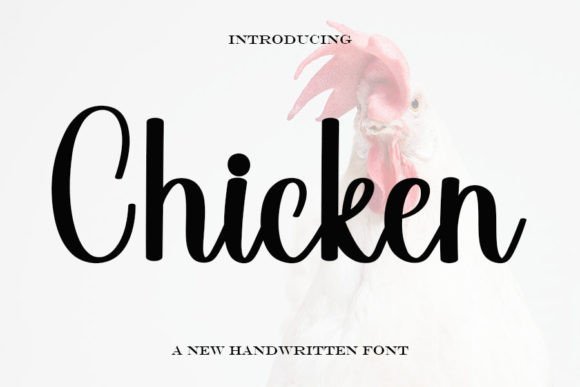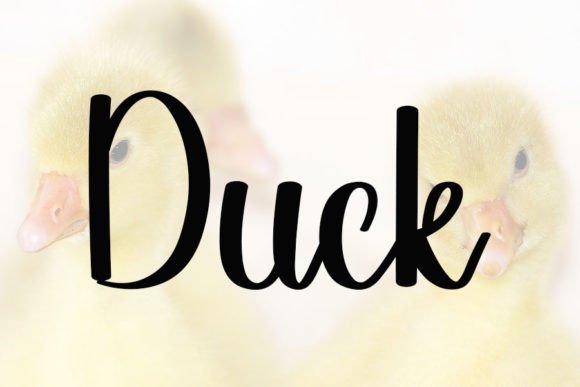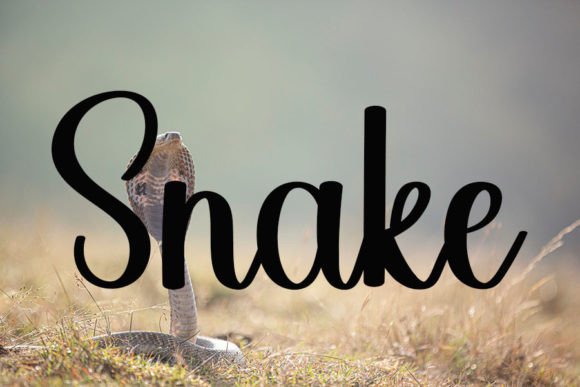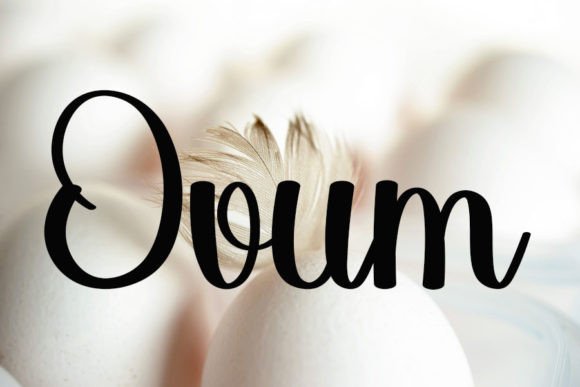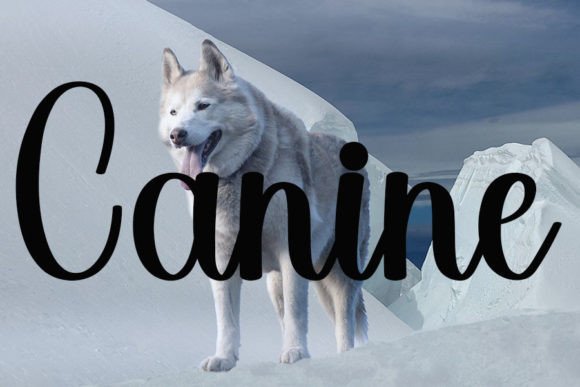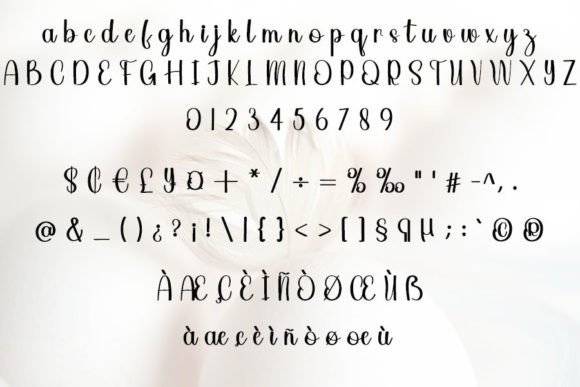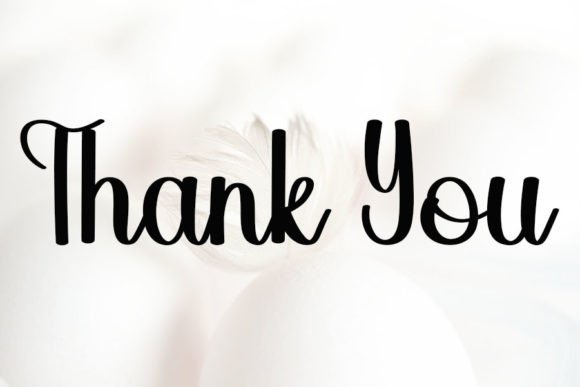
Discover the Timeless Charm of Chicken Font
Have you ever been working on a design project, pouring over endless options for the perfect font, when suddenly you stumble upon something that makes your heart skip a beat? For designers, this moment is a game-changer. It’s the moment when you know you’ve found the perfect fit for your project. And for many, that perfect fit is the Chicken Font.
This beautiful handwritten font is described by an elegant touch, making it perfect for a wide range of projects. Whether you’re working on a wedding invitation, a branding campaign, or a simple social media post, Chicken Font is sure to bring a touch of sophistication and style. Its incredibly distinct and timeless style makes it a valuable asset for any designer looking to add a little something extra to their designs.
Key Features of Chicken Font
- Character Set: The font includes a wide range of characters, including Latin, Greek, Cyrillic, and Devanagari scripts, with over 1000 glyphs.
- Resolution: Chicken Font is designed to be highly legible at various resolutions, from 72 dpi to 300 dpi, making it suitable for digital and print applications.
- Font Size: The font is available in 5 different weights (Thin, Light, Regular, Medium, and Bold) and 2 different widths (Normal and Condensed), allowing for flexibility in typography.
- Unique Characteristics: Chicken Font features a distinctive, hand-drawn style with subtle imperfections, giving it a unique and humanistic feel.
Designer Review: Chicken Font
As a designer, I was excited to try out the Chicken Font. Overall, it’s a quirky and fun font that’s sure to grab attention. Here’s what I like about it:
- ✨ Unconventional character shapes: The Chicken Font features bold, playful character shapes that add a touch of whimsy to any design.
- ✨ High level of expressiveness: The font is well-suited for projects that require a lot of personality and energy.
- ✨ Variety of weights: The font comes in a range of weights, from light to bold, making it versatile for use in different contexts.
- ⚠️ Limited legibility: The bold, playful character shapes can sometimes make the font difficult to read, particularly in smaller sizes.
- ⚠️ Limited language support: The font may not be suitable for projects that require a wide range of languages, as it appears to be primarily designed for English.
Overall, I think the Chicken Font is a great choice for projects that require a playful, attention-grabbing feel. While it may have some limitations, its unique character shapes and expressiveness make it a great option for designers looking to add some personality to their work.
Getting the Most Out of Chicken Font
For best results, use Chicken Font in bold or italic styles to add emphasis.
Experiment with different font sizes and colors to create visually appealing designs.
Use Chicken Font for headings, titles, and short paragraphs to create a cohesive look.
Chicken Font is ideal for:
Food and drink branding
Children’s educational materials
Playful and whimsical designs
Alternatives to “Chicken Font” for Designers
Great Vibes is a modern calligraphy font perfect for creating elegant and sophisticated designs. It’s ideal for use in logos, invitations, and other high-end branding materials. Great Vibes has a more refined and polished look compared to Chicken Font, which can sometimes appear more playful and childish.
Pacifico is a beautiful script font that evokes a sense of relaxation and calmness. It’s suitable for use in designs that require a touch of warmth and personality, such as food and beverage branding, or travel and hospitality marketing. Unlike Chicken Font, Pacifico has a more flowing and organic feel, making it ideal for designs that require a lot of text.